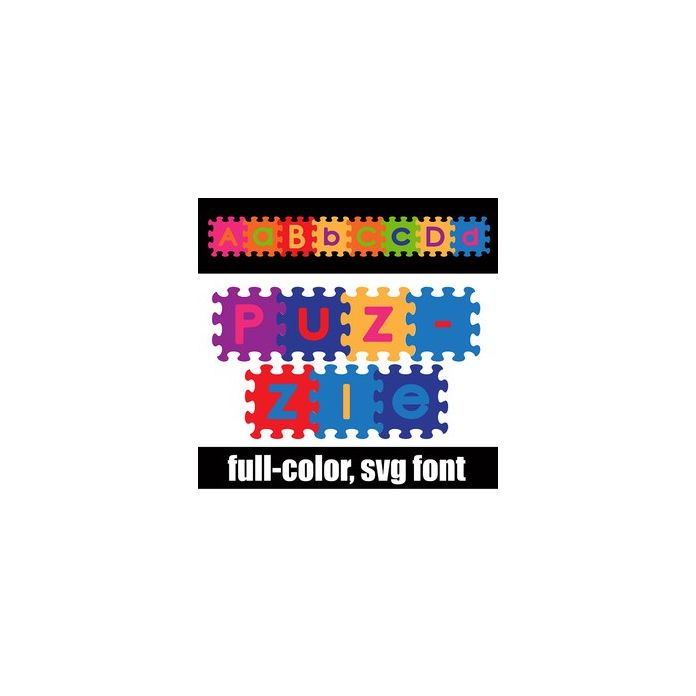
This full-color font features letters on puzzle pieces. Type the underscore for a blank puzzle piece. There is an alt case w/ additional colors you can access through your system or Silhouette's glyph map.